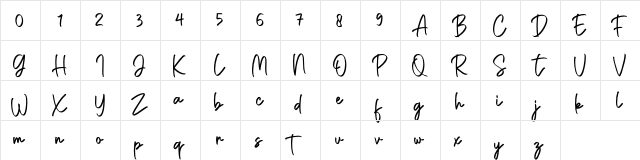
Caroline Amanda Regular
| Designer | Jefri Dwi Alfatah |
Caroline Amanda is a composed and adaptable typeface that performs quietly and consistently across a wide range of design contexts.